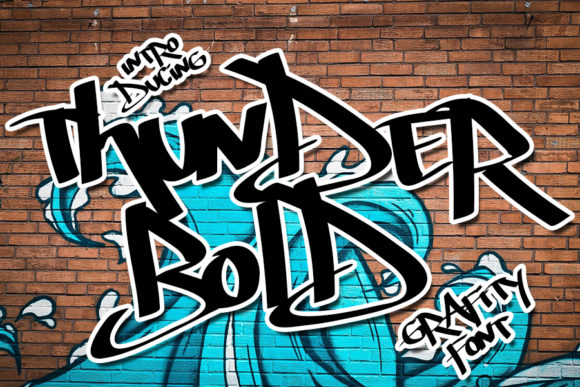
Thunder Bold Font: Unleash the Power of Urban Display Typography
Are you looking for a font that can add a bold and rugged touch to your designs? Look no further than Thunder Bold, an urban display font inspired by street art and graffiti. With its bold letters and authentic feel, Thunder Bold is perfect for catching the attention of viewers, readers, and spectators. In this article, we’ll explore the world of Thunder Bold Font and how it can elevate your designs to the next level.
What is Thunder Bold Font?
Thunder Bold is a display font that embodies the spirit of urban street art. Its bold and rugged design makes it perfect for creating eye-catching headlines, titles, and slogans. The font is inspired by the world of graffiti and street art, giving it a unique and authentic feel. With Thunder Bold, you can add a touch of urban grit to your designs and make them stand out from the crowd.
Key Features of Thunder Bold Font
- Bold and Rugged Design: Thunder Bold features bold and rugged lettering that is perfect for creating eye-catching designs.
- Urban Inspiration: The font is inspired by street art and graffiti, giving it a unique and authentic feel.
- Attention-Grabbing: Thunder Bold is designed to grab attention and make a statement.
- Versatile: The font can be used for a variety of design projects, from posters and flyers to logos and branding.
Usage Ideas for Thunder Bold Font
Thunder Bold is a versatile font that can be used for a variety of design projects. Here are some ideas to get you started:
- Posters and Flyers: Use Thunder Bold to create eye-catching posters and flyers that grab attention.
- Logos and Branding: Create a bold and rugged logo for your business or brand with Thunder Bold.
- Social Media Graphics: Use Thunder Bold to create social media graphics that stand out from the crowd.
- Advertising: Thunder Bold is perfect for creating bold and attention-grabbing ads.
Benefits of Using Thunder Bold Font
There are many benefits to using Thunder Bold Font in your designs. Here are a few:
- Grabs Attention: Thunder Bold is designed to grab attention and make a statement.
- Unique and Authentic: The font’s urban inspiration gives it a unique and authentic feel.
- Increases Engagement: Thunder Bold can help increase engagement with your audience by making your designs more eye-catching.
- Versatile: The font can be used for a variety of design projects.
Tips and Tricks for Using Thunder Bold Font
Here are some tips and tricks for using Thunder Bold Font in your designs:
- Use it Sparingly: Thunder Bold is a bold font, so use it sparingly to avoid overwhelming your design.
- Pair it with Other Fonts: Pair Thunder Bold with other fonts to create a unique and interesting design.
- Experiment with Colors: Experiment with different colors to find the perfect combination for your design.
- Keep it Simple: Keep your design simple and clean to let Thunder Bold shine.
Thunder Bold Font is a powerful and versatile font that can add a bold and rugged touch to your designs. With its urban inspiration and attention-grabbing design, Thunder Bold is perfect for creating eye-catching headlines, titles, and slogans. Whether you’re a designer, artist, or simply someone who wants to add a touch of urban grit to their designs, Thunder Bold is a great choice.